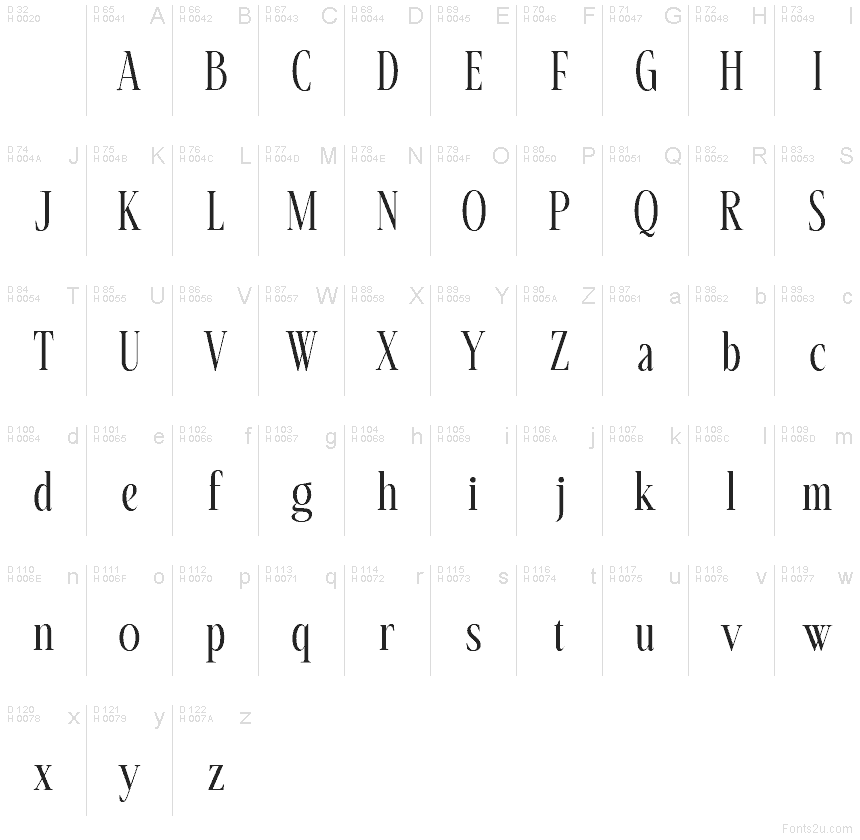
Rosmanic Regular Demo
Rosmanic font, designed by Craft Supply Co., is a refined condensed serif with an air of sophistication. Its elegant structure and thoughtful design present a classic yet professional appearance, making it a lovely addition to any design project. This free serif font is comfortable to the eye and provides excellent readability even at smaller sizing.
Present your branding projects, printables, title headlines, social media posts, greetings cards, ads, magazines covers & pages. Enjoy using Rosmanic for publishing house projects like novels or movie posters for different genres from drama to action.